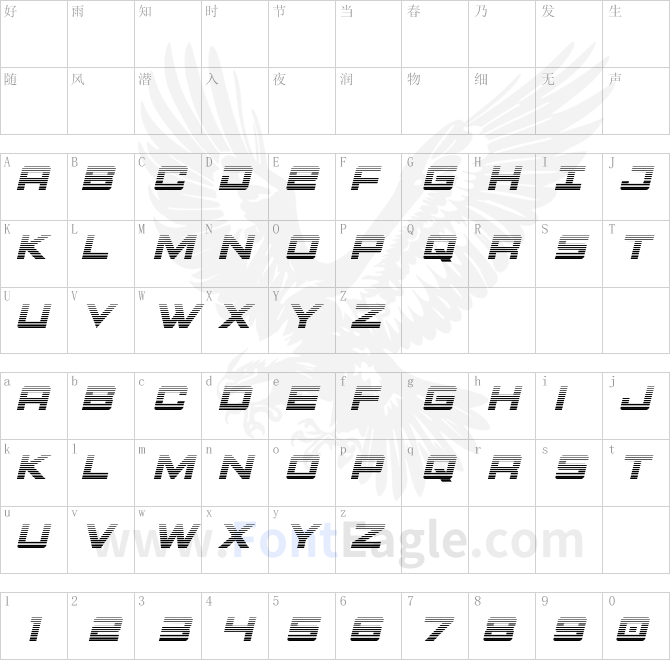
Montroc-Gradient-Italic is a great font, widely used in graphic design, single-page menu design, poster design and other fields, and is deeply loved by designers.Montroc-Gradient-Italic download.